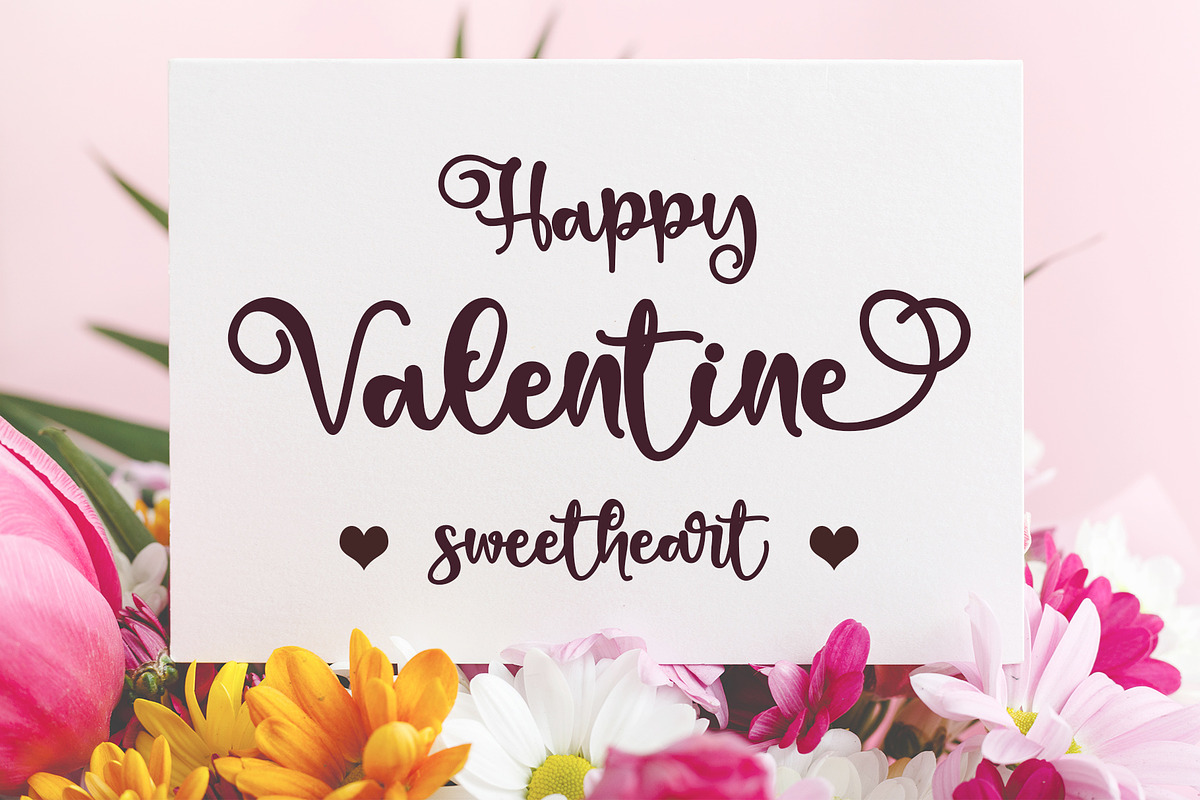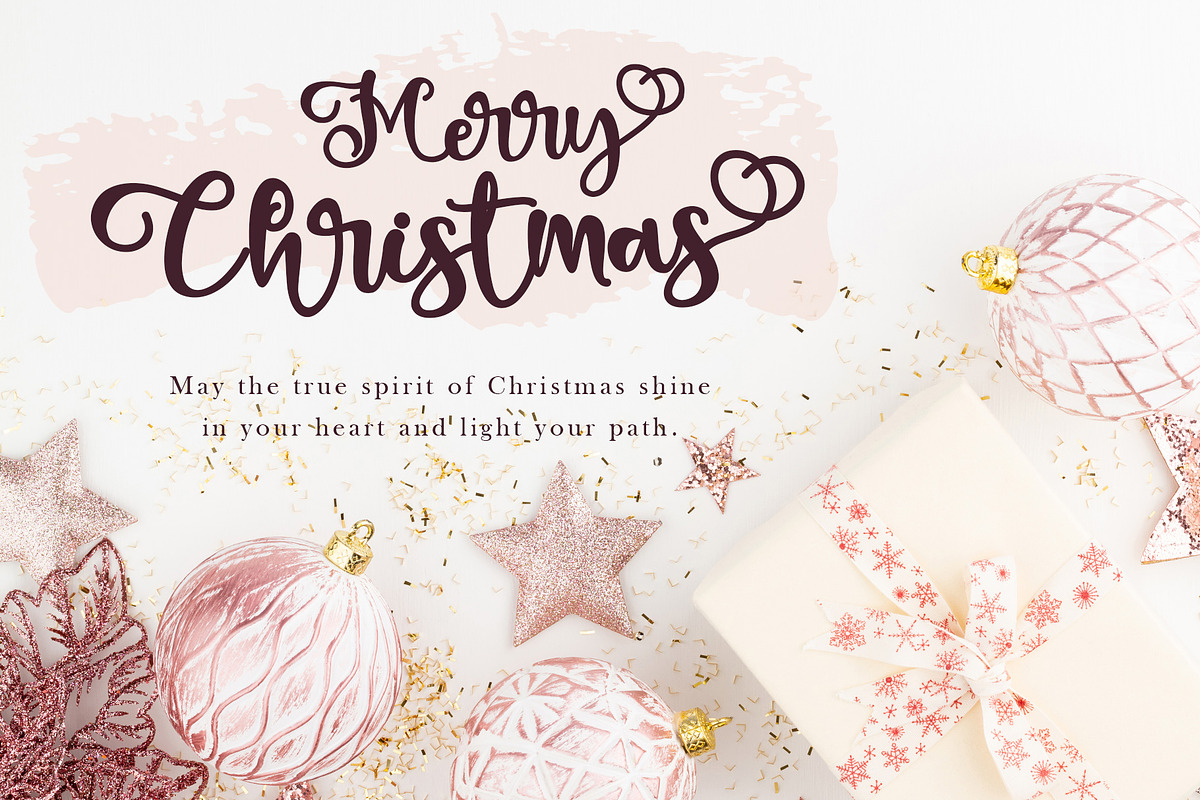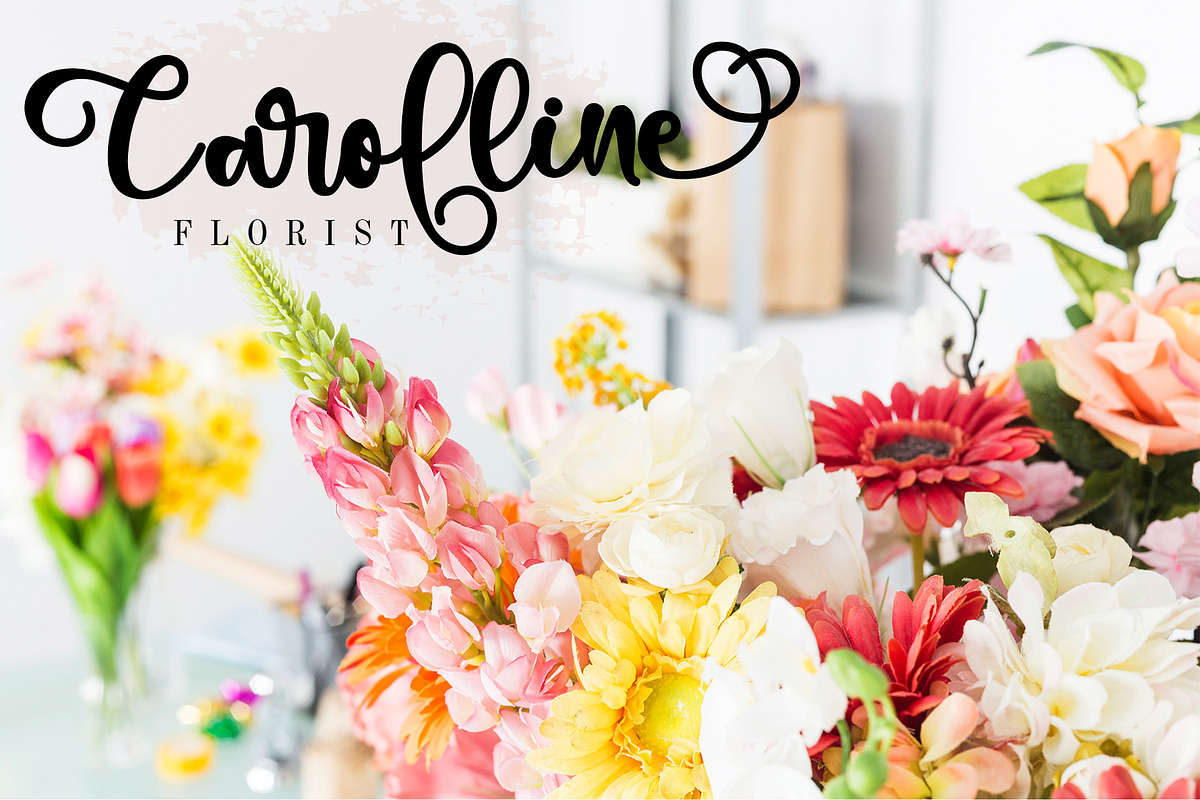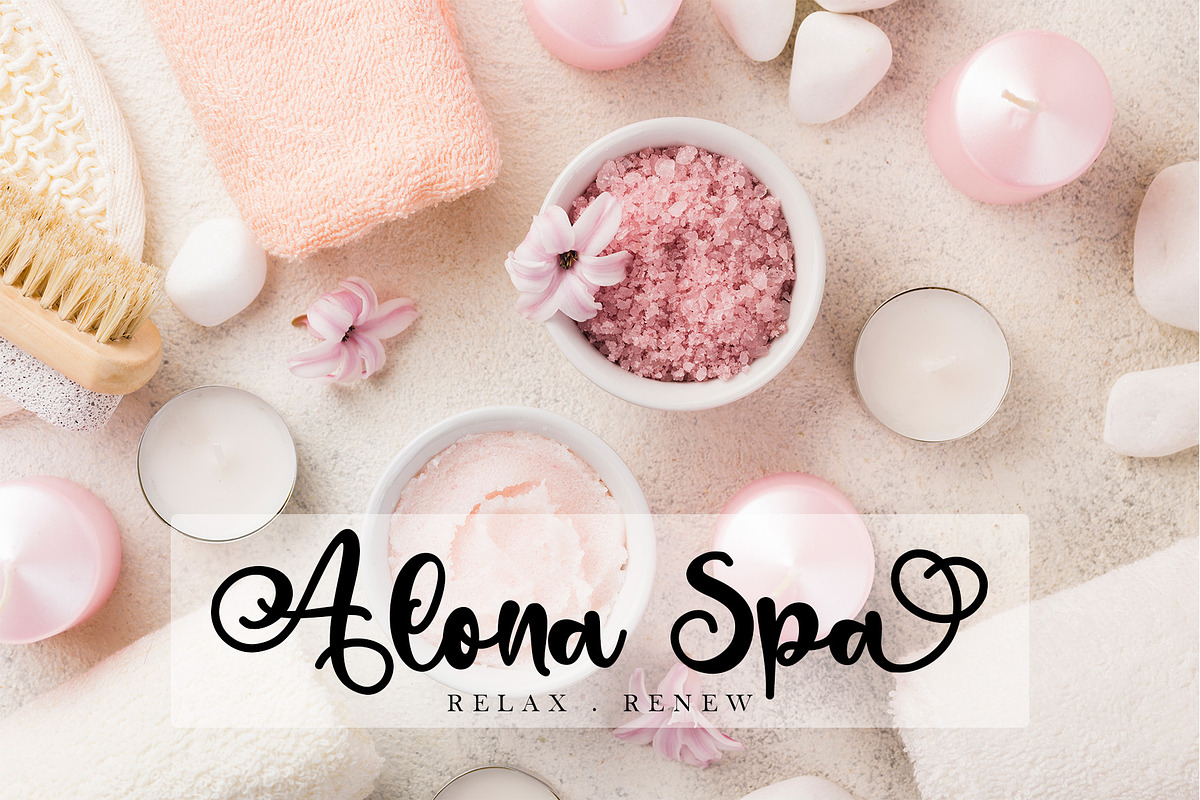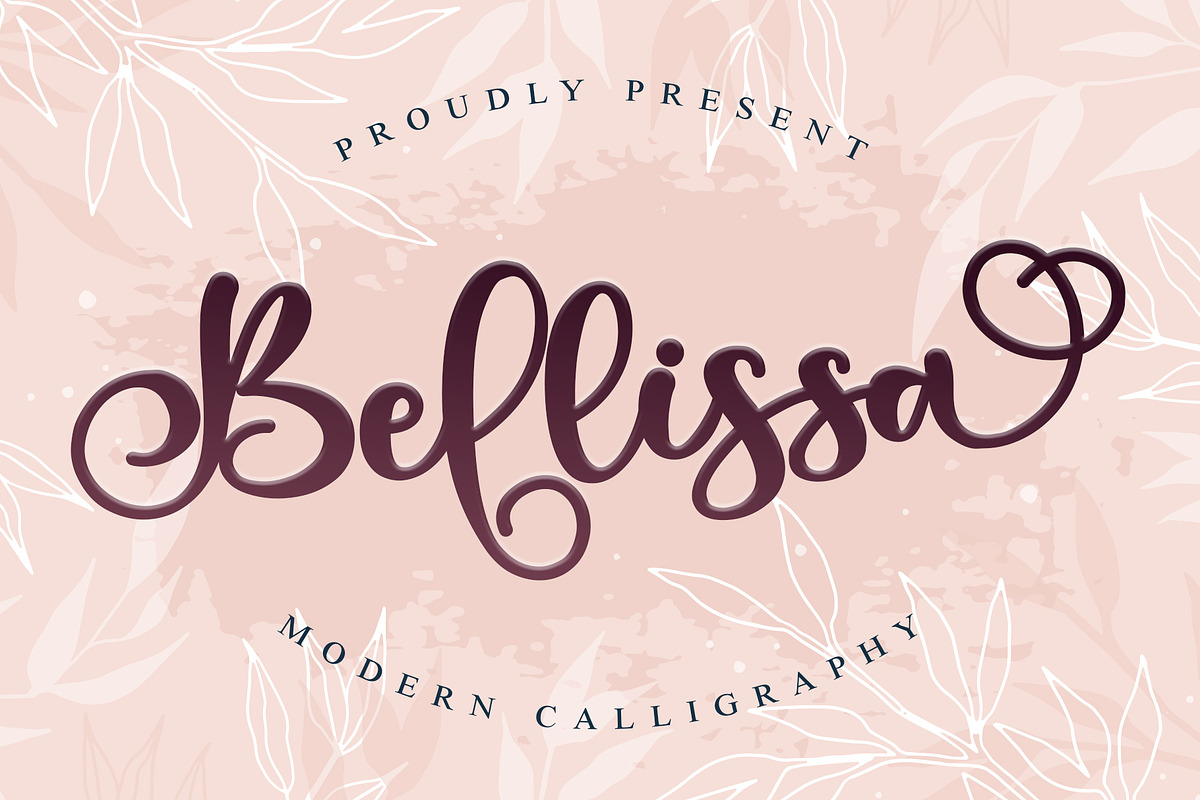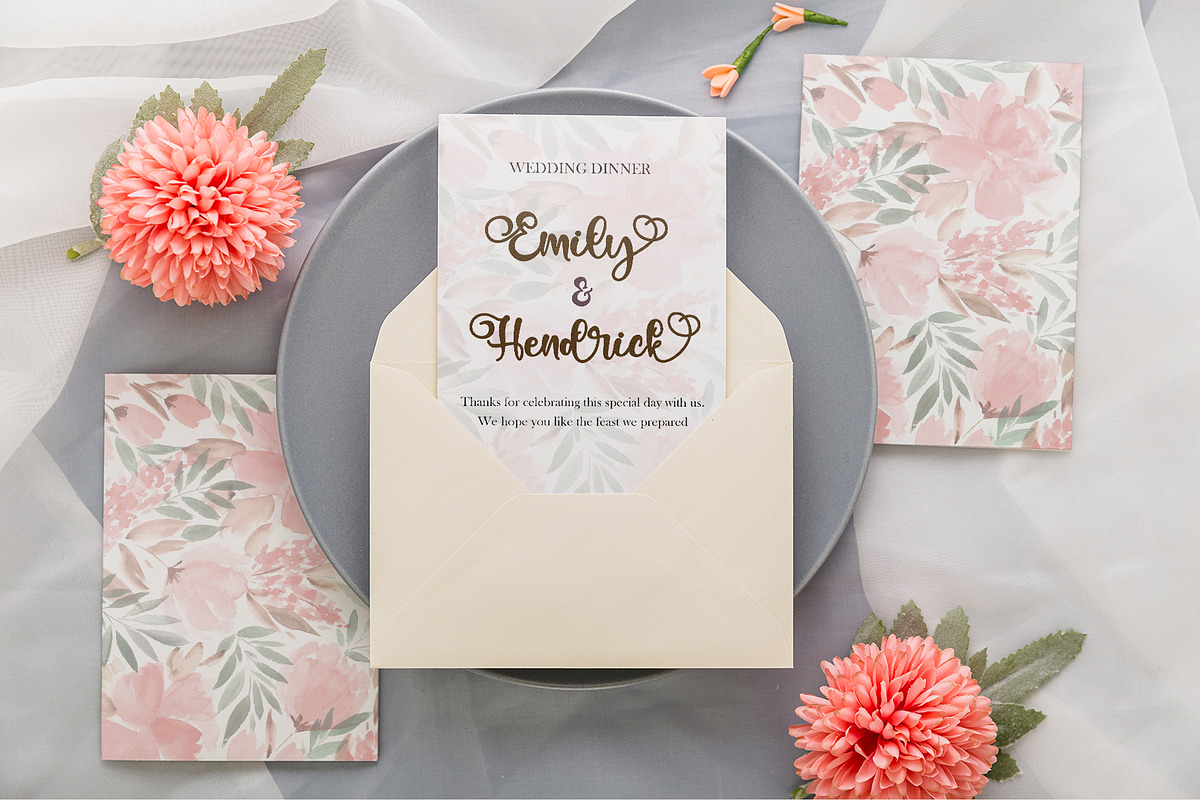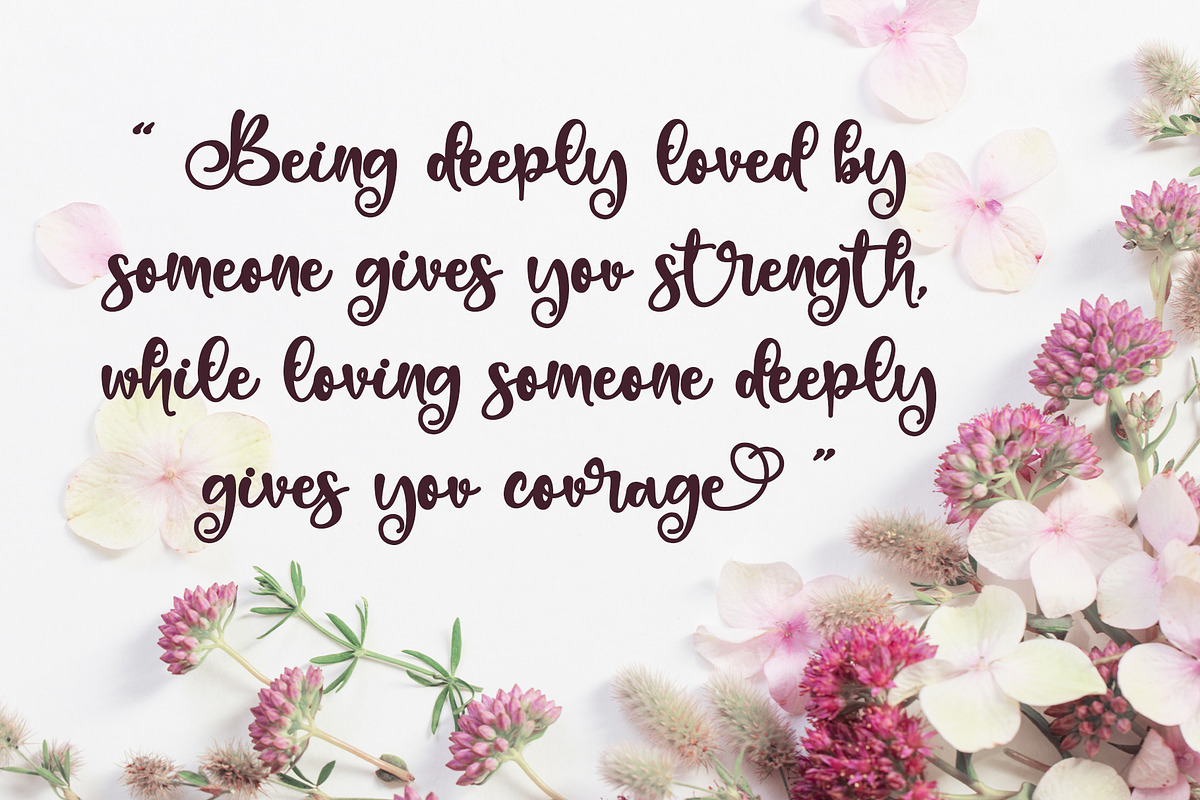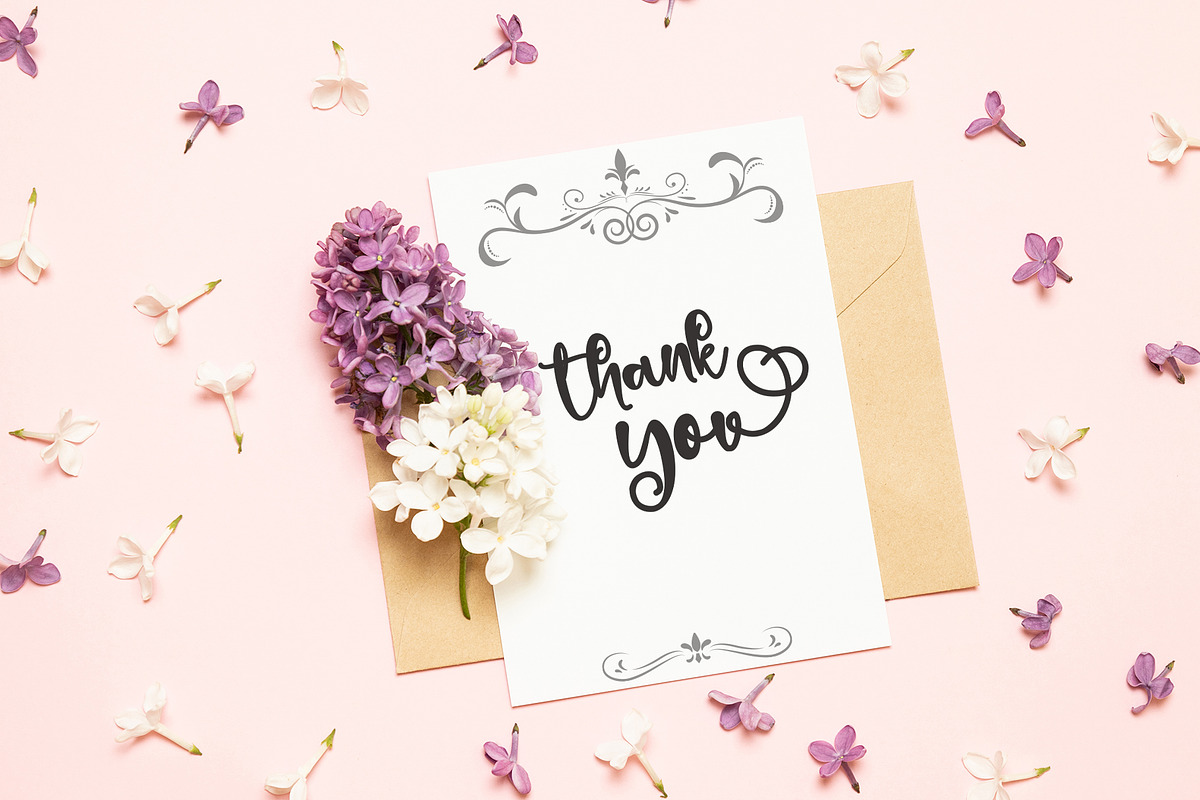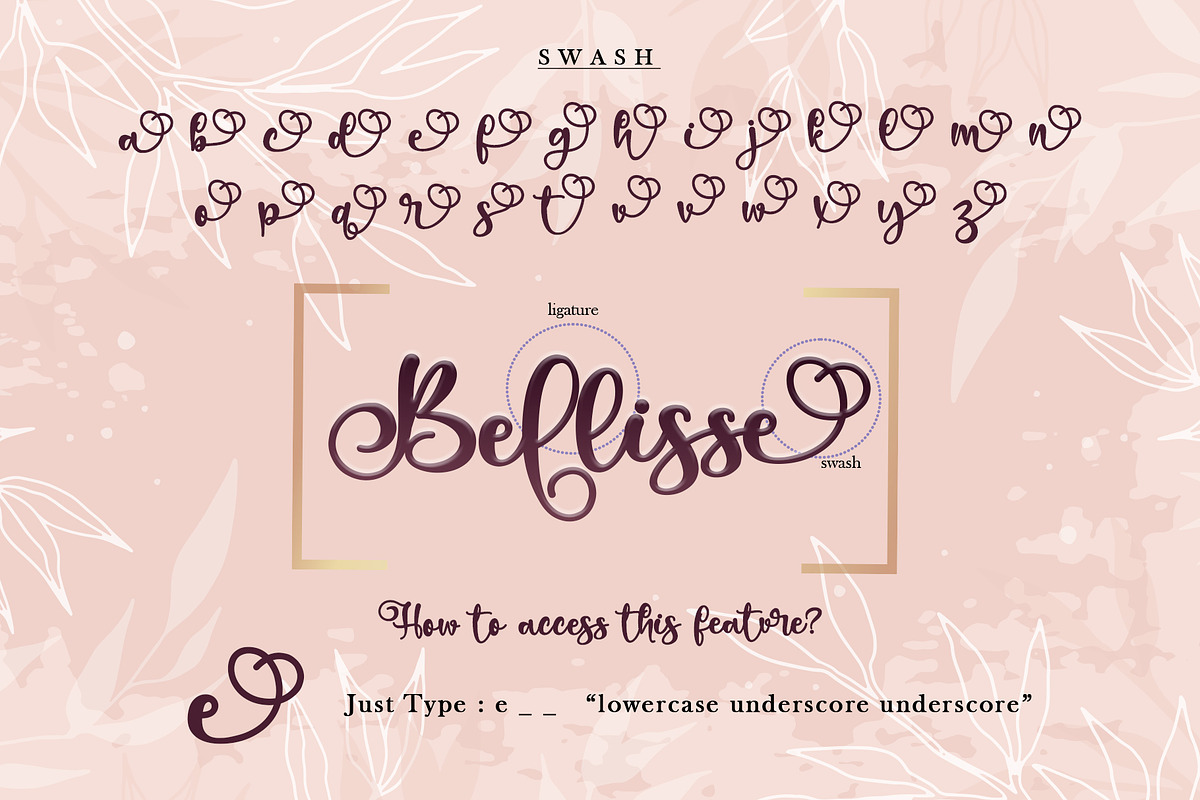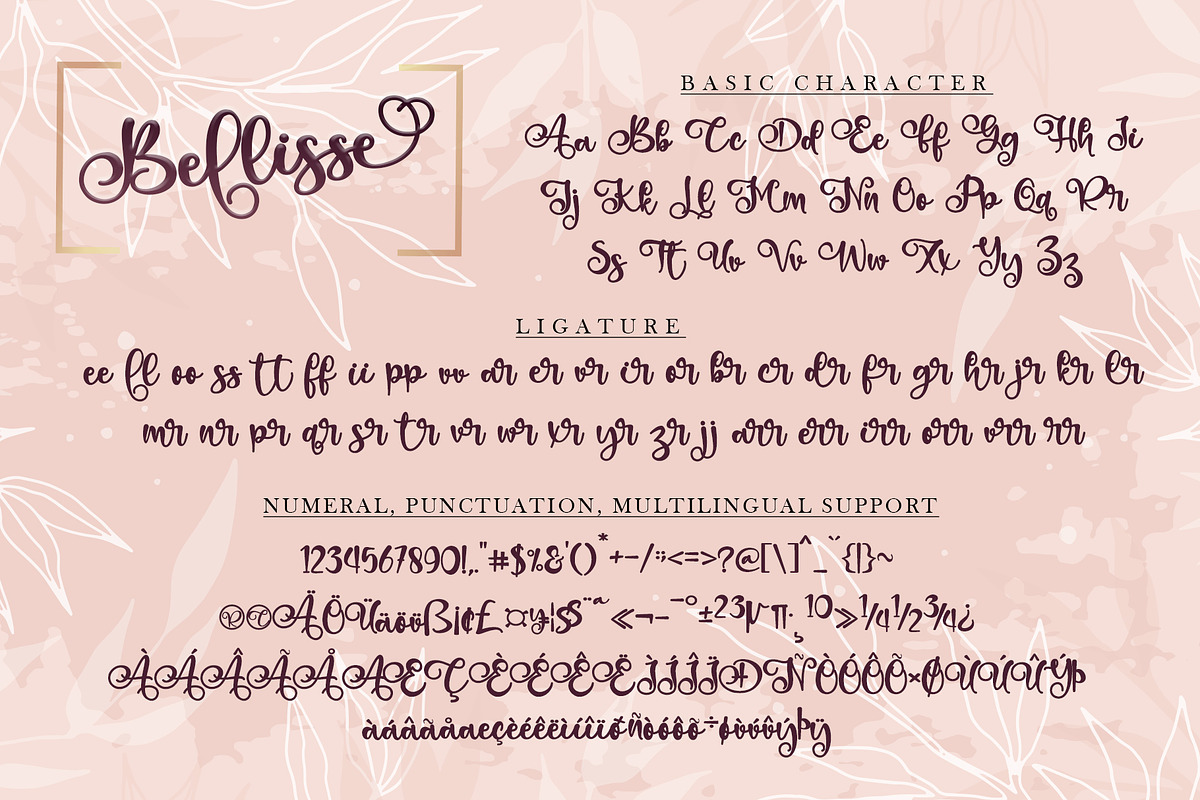
Bellissa
Bellissa is a beautiful Calligraphy font designed with an incredibly modern feel. This font is PUA encoded which means you can access all of the glyphs and swashes with ease! It features a varying baseline, gorgeous glyphs, and stunning Swash. Use this gorgeous and unique Calligraphy font to bring any DIY project to life!
- Many features: Swash and Ligature
- Support multilingual; ä ö ü Ä Ö Ü ß ¿ ¡